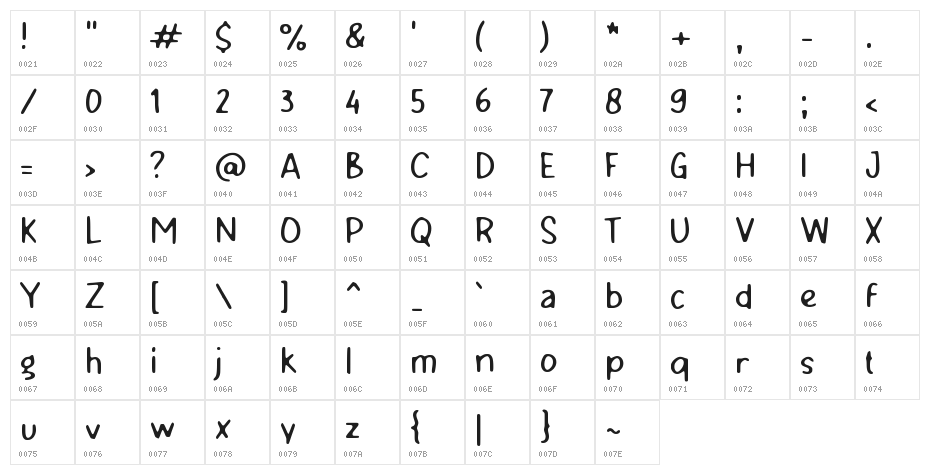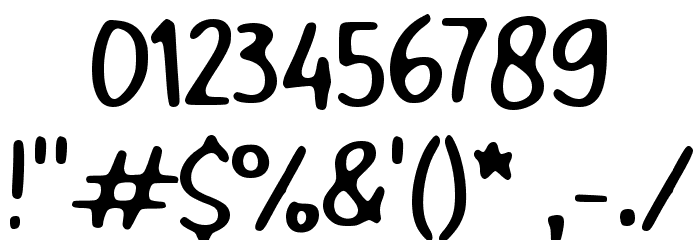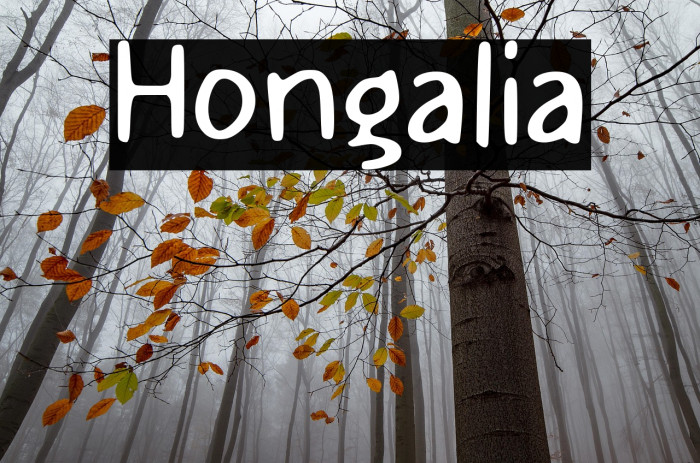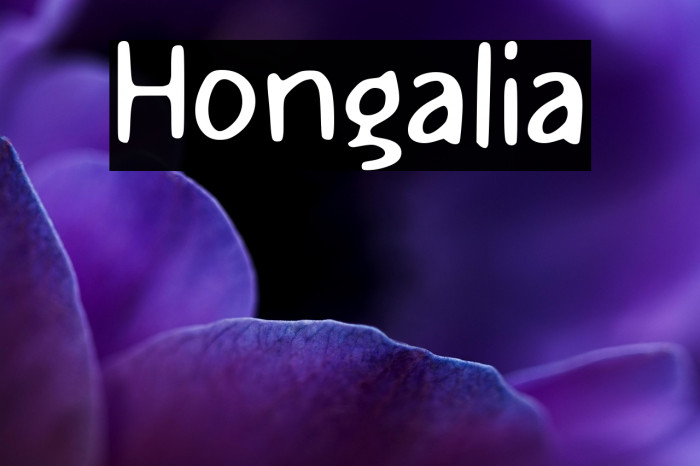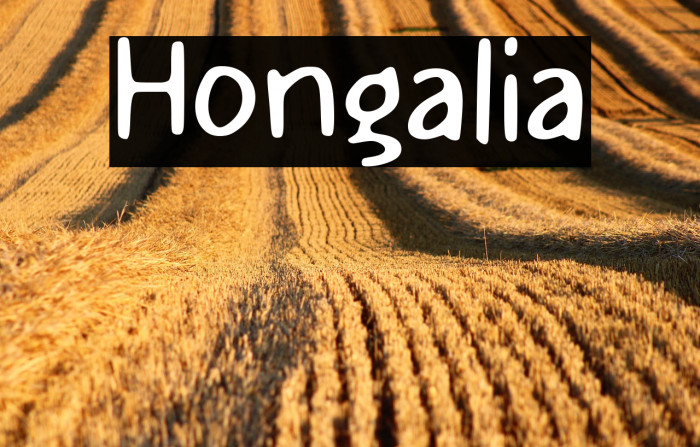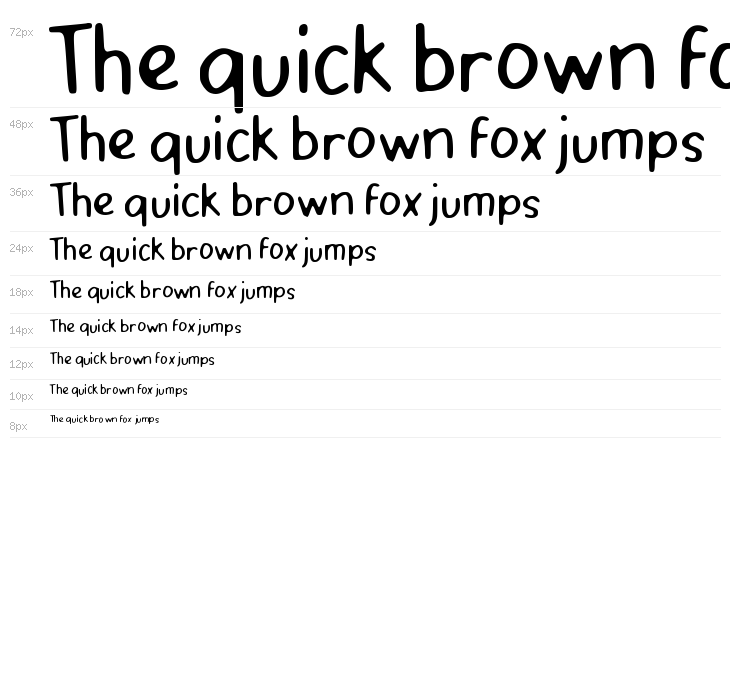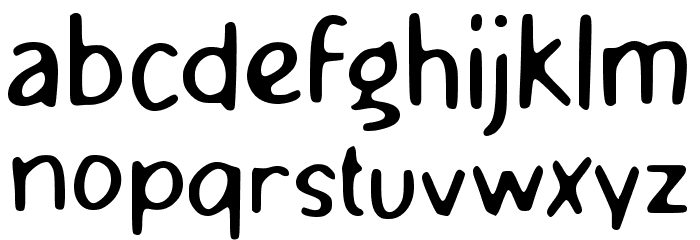
Hongalia Font
Hongalia Description
This font features a playful and informal style, characterized by its hand-drawn appearance. The letters are slightly irregular, giving it a casual and friendly feel. The strokes are consistent in thickness, providing a uniform look across all characters. The uppercase letters are bold and prominent, while the lowercase letters maintain a similar weight, ensuring readability. The numerals are clear and distinct, matching the overall style of the alphabet. Special characters are creatively designed, adding to the font's whimsical nature. This font is perfect for projects that require a personal touch or a fun, approachable aesthetic.
| Overall Style | Casual, Playful |
| Use Case | Headlines, Logos, Informal Text |
| Proposed Projects | Ideal for children's books, greeting cards, playful branding, and informal invitations. |